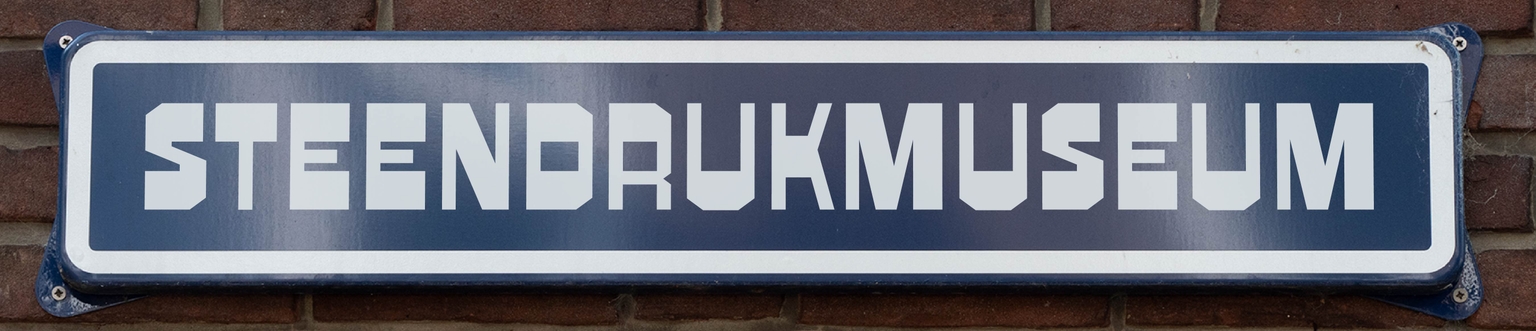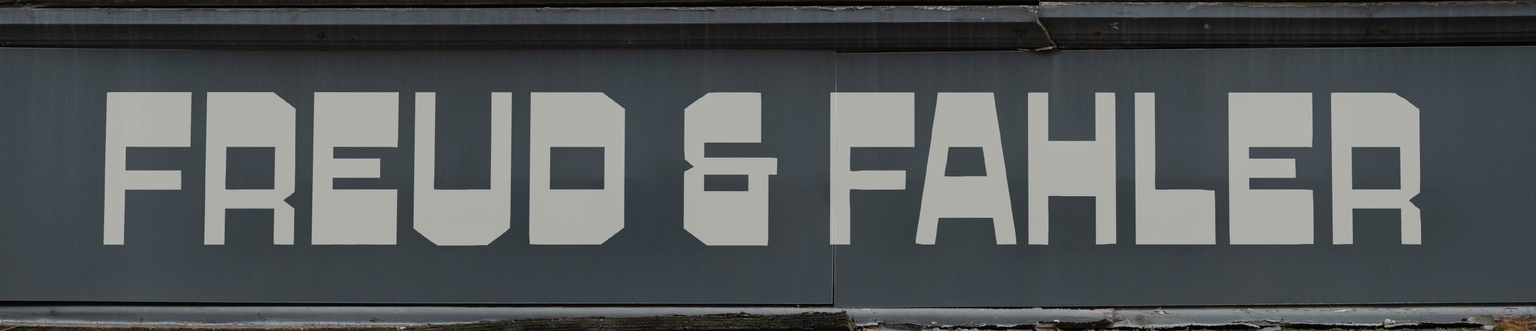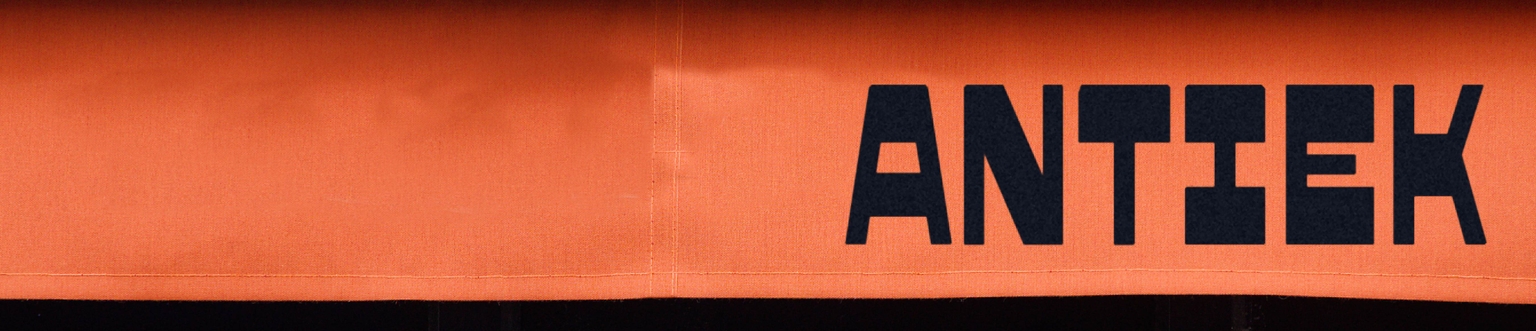
Evy
Evy is a reversed contrast display typeface designed by Paula Mastrangelo, inspired by the bold, unconventional charm of 19th-century wood type—particularly the exaggerated styles developed in the United States for posters, show bills, and advertising. Evy embraces the striking horizontal stress and playful proportions that made these typefaces stand out in crowded visual landscapes.
Rather than replicating a single specimen, Mastrangelo distilled the spirit of the genre into a cohesive, contemporary typeface. Evy exaggerates its thick horizontals and sharp verticals to create a rhythm that is both unexpected and highly legible, making it perfect for logos, editorial headlines, packaging, and visual identities that demand attention.
With its roots in the energetic world of 19th-century display typography and a fresh digital interpretation, Evy celebrates the graphic exuberance of early advertising while offering designers a unique and expressive typographic tool.